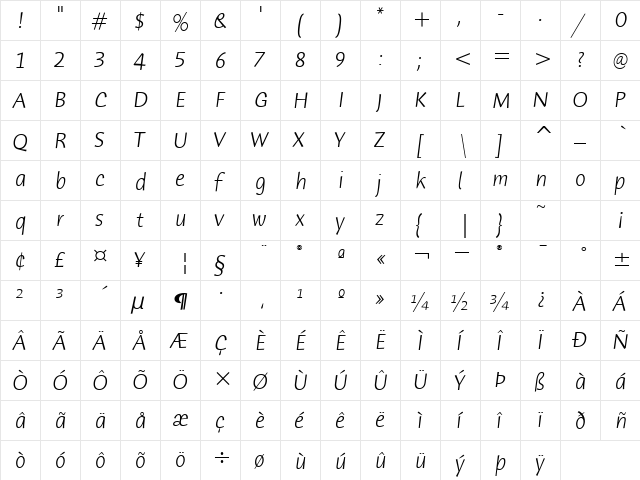
HumanaSansITC-Light LightItalic Font Preview
HumanaSansITC-Light LightItalic
Design Context for HumanaSansITC-Light Typeface
HumanaSansITC-Light is a composed and adaptable typeface that performs quietly and consistently across a wide range of design contexts. The dynamic lean of this cut emphasises speed and emphasis in any layout. Its slender proportions lend an understated elegance to any composition.